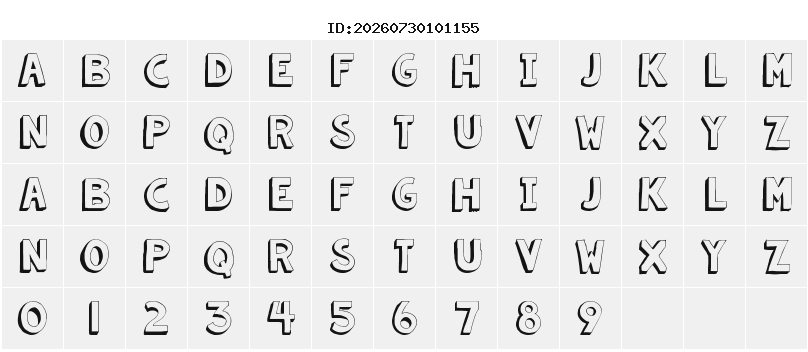
• Font Name: KG Summer Sunshine Shadow
• Full Font Name: KG Summer Sunshine Shadow
• Designer: Kimberly Geswein
• Manufacturer: Kimberly Geswein
About KG Summer Sunshine Shadow.ttf
KG Summer Sunshine Shadow.ttf is a modern, elegant sans-serif font designed for ultimate readability and visual harmony. Perfect for branding, headlines, web design, and print materials.